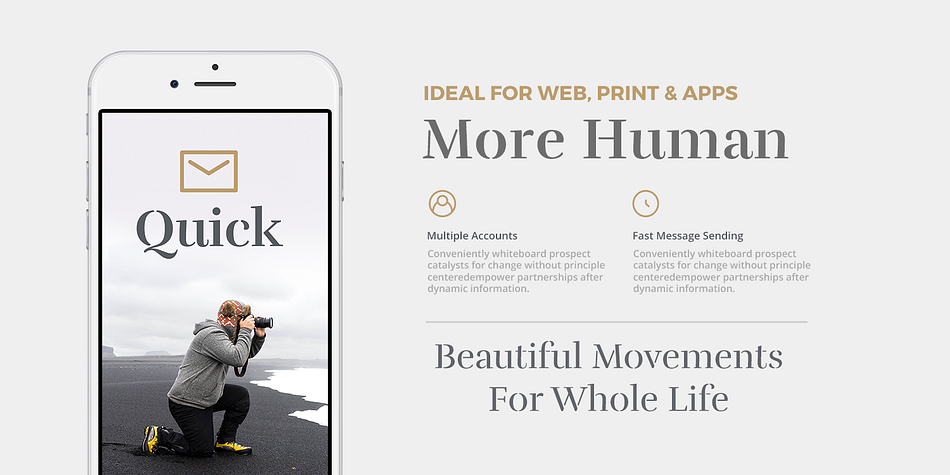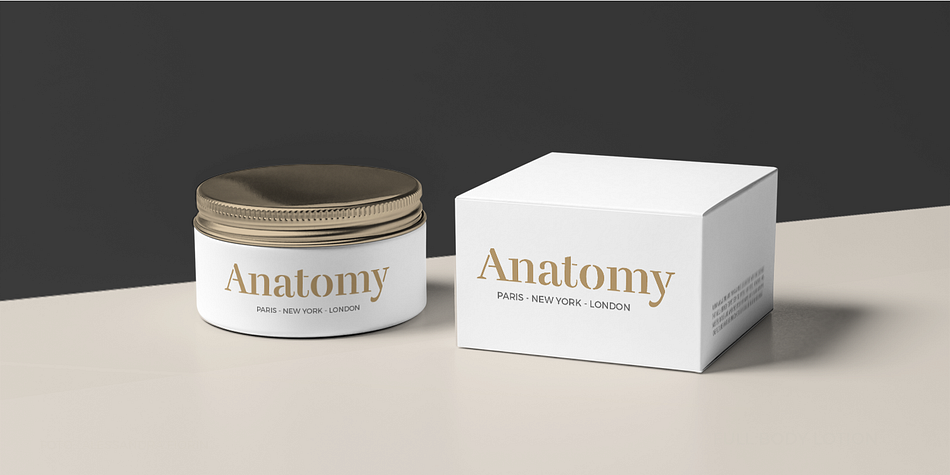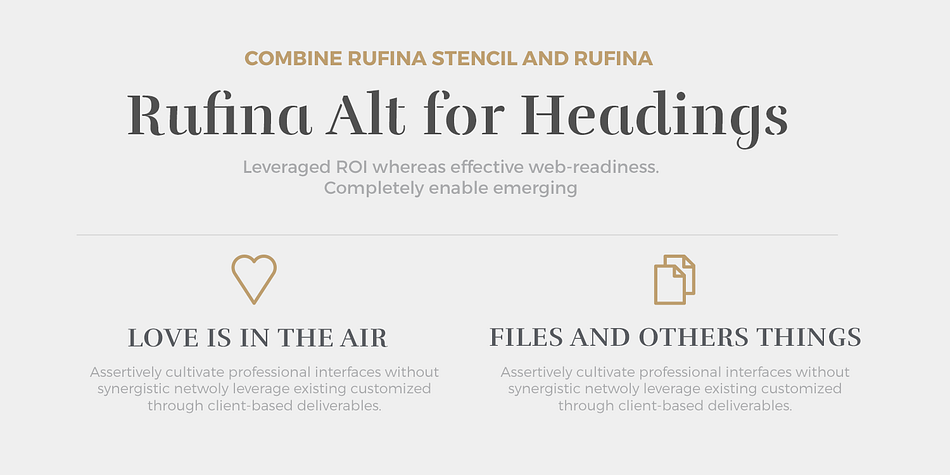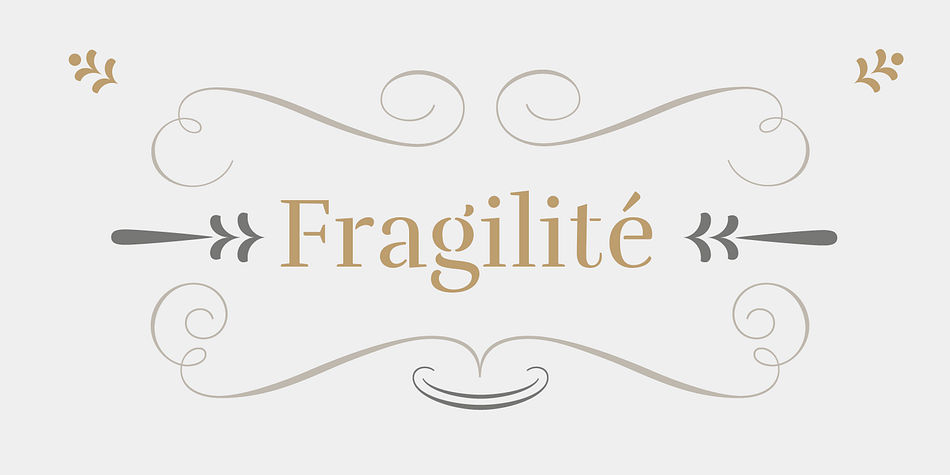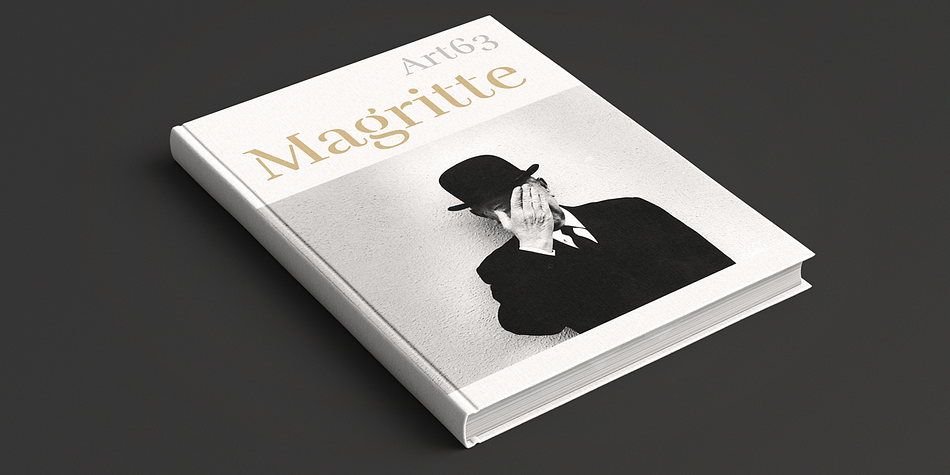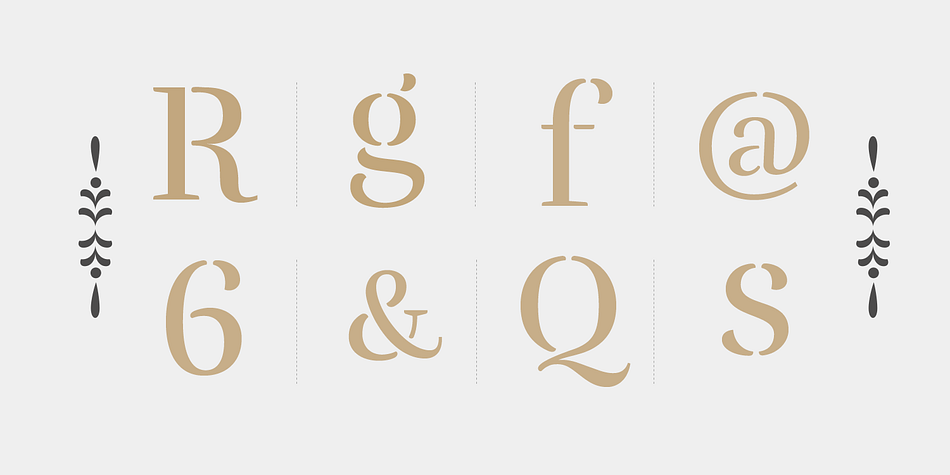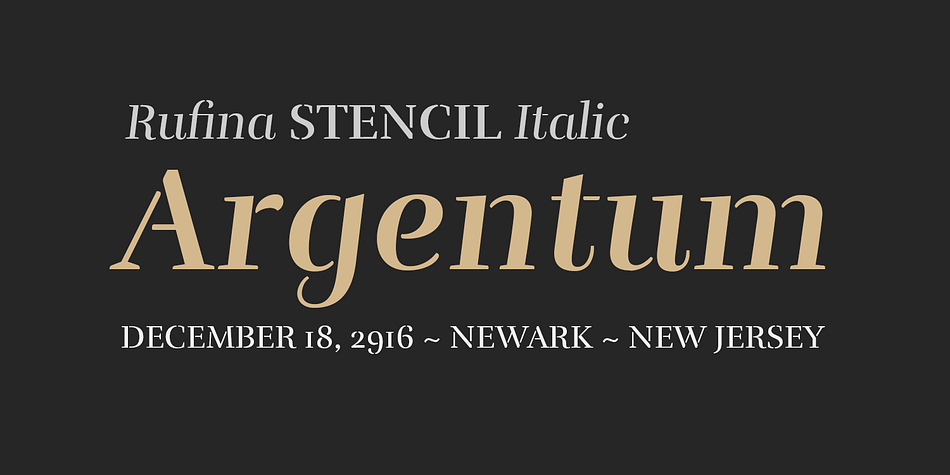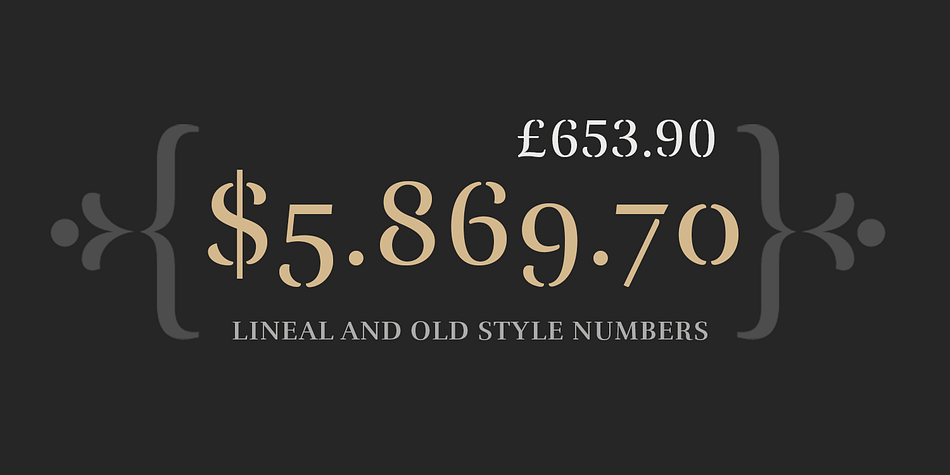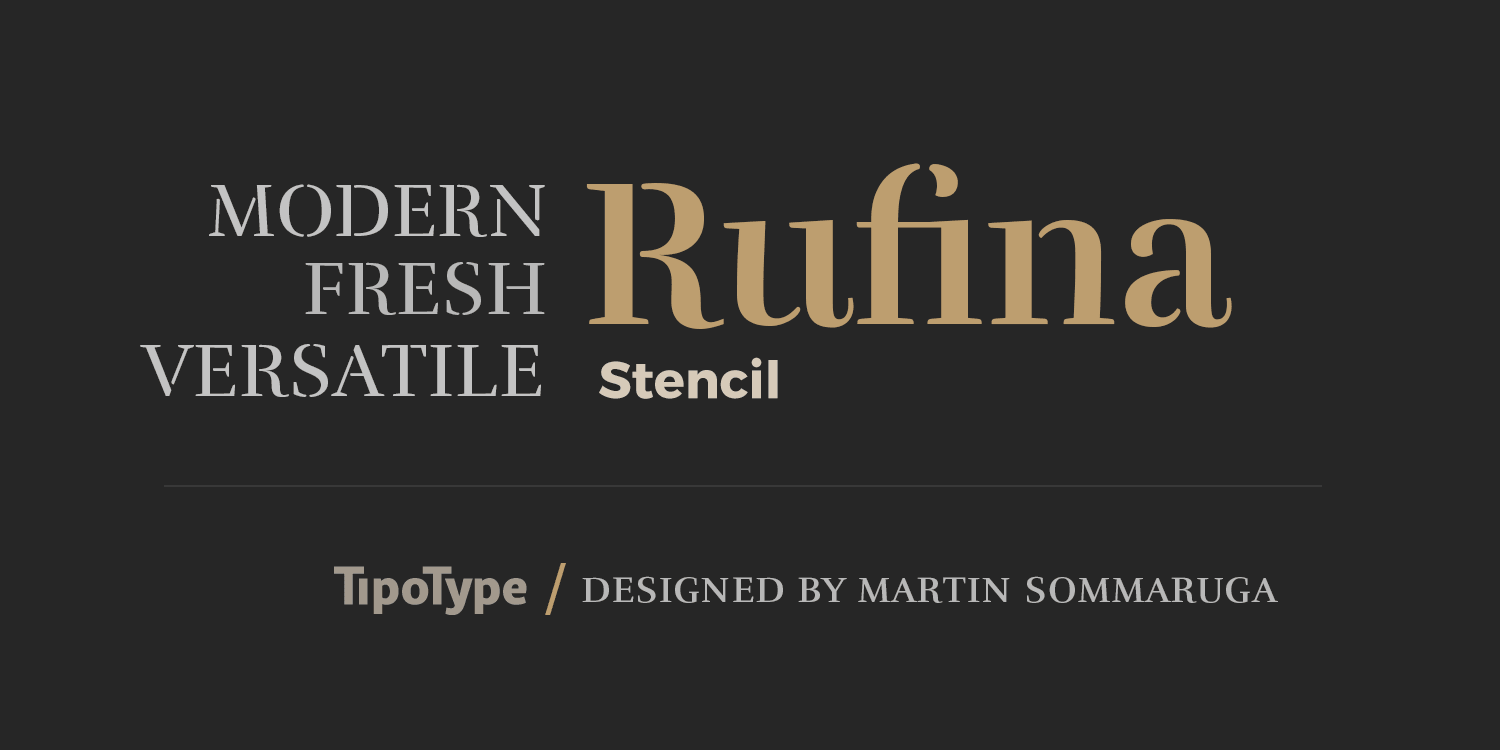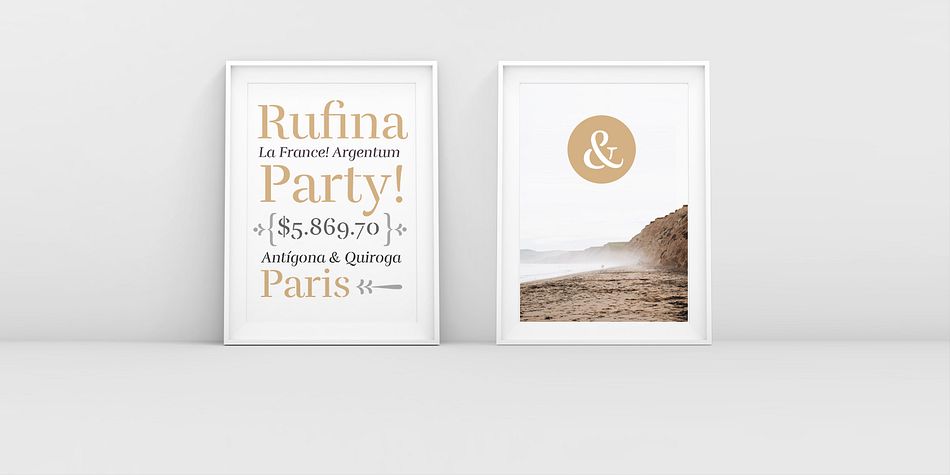
Designed by Martin Sommaruga, Rufina Stencil is a dingbat, serif and stencil font family. This typeface has nine styles and was published by TipoType.
Simplicity, delicacy and elegance are the words that best characterize Rufina. Based on an idea that was conceived long before its birth, Rufina was created from dark-text on light-background combinations. Refined and at the same time distant, Rufina seduces the viewer in a subtle and elegant manner. Blending of contrasty, Bodoni-influenced forms with the emotive touch of the calligraphers pen. This family consists of two weights, their italic counterparts, plus a set of alternate cuts each containing a selection of illustrative ornaments.